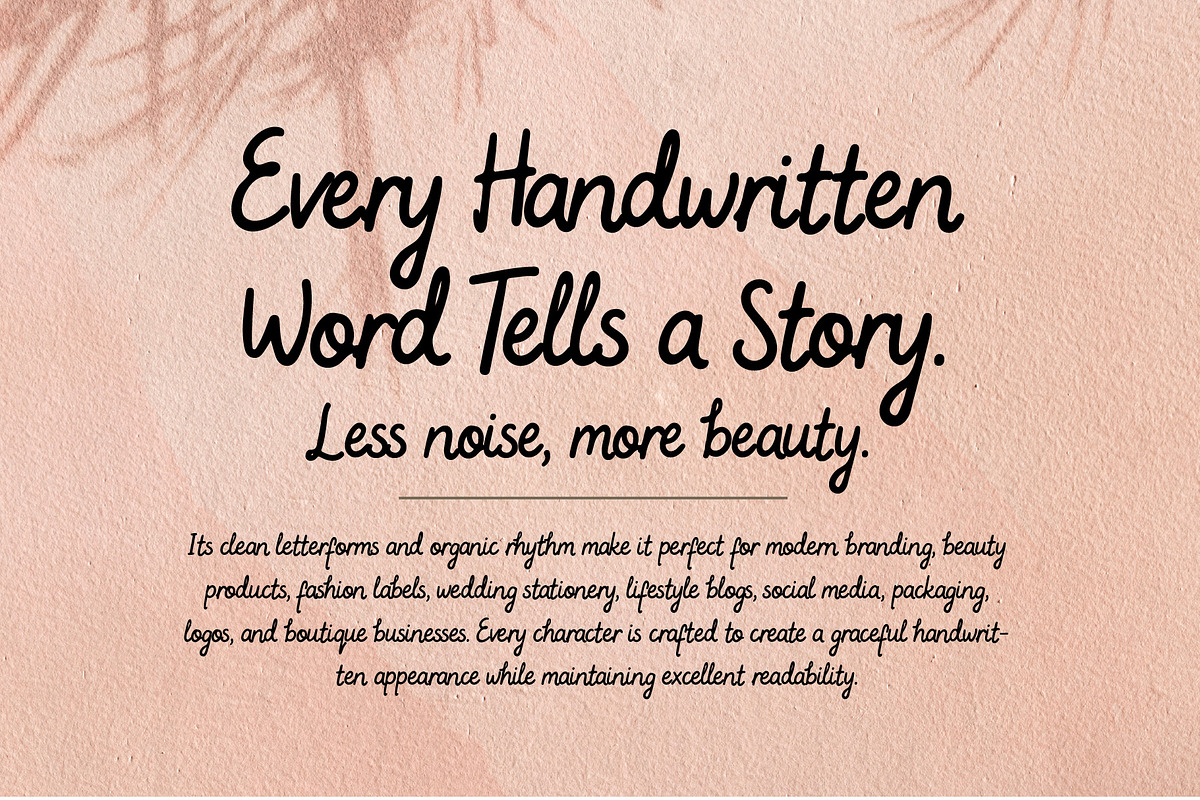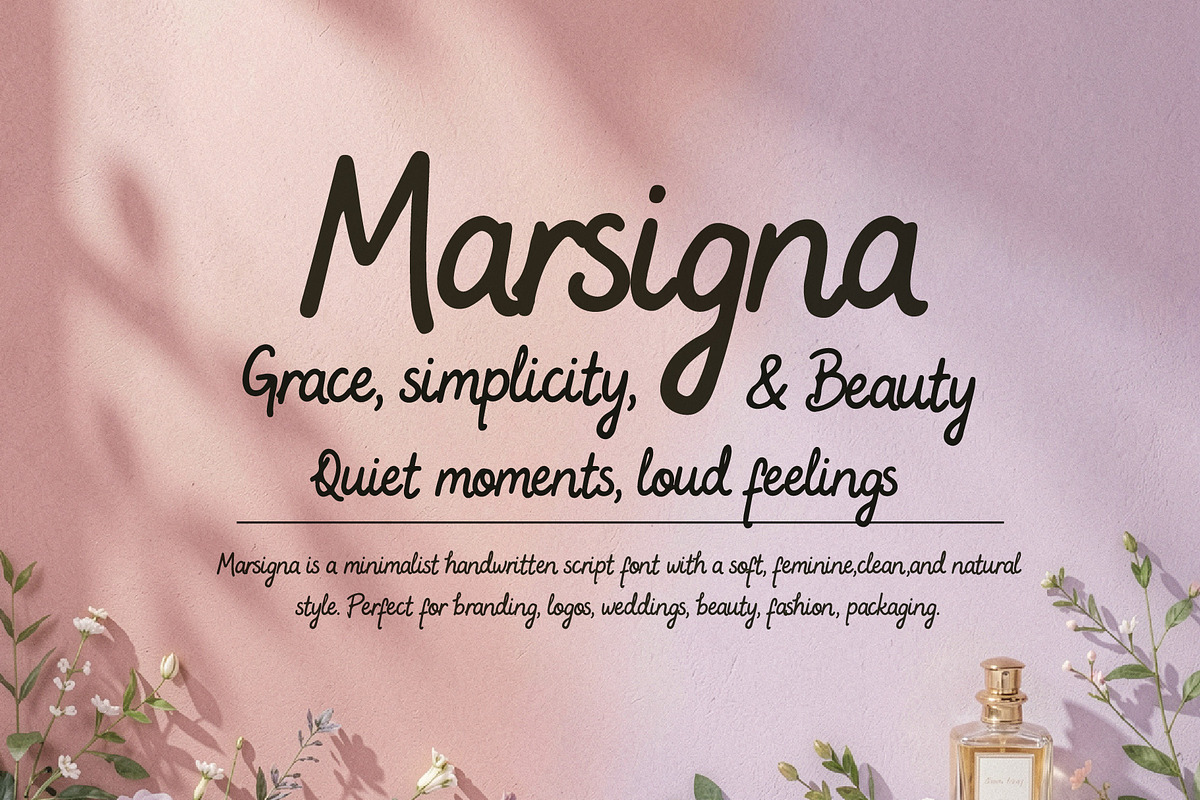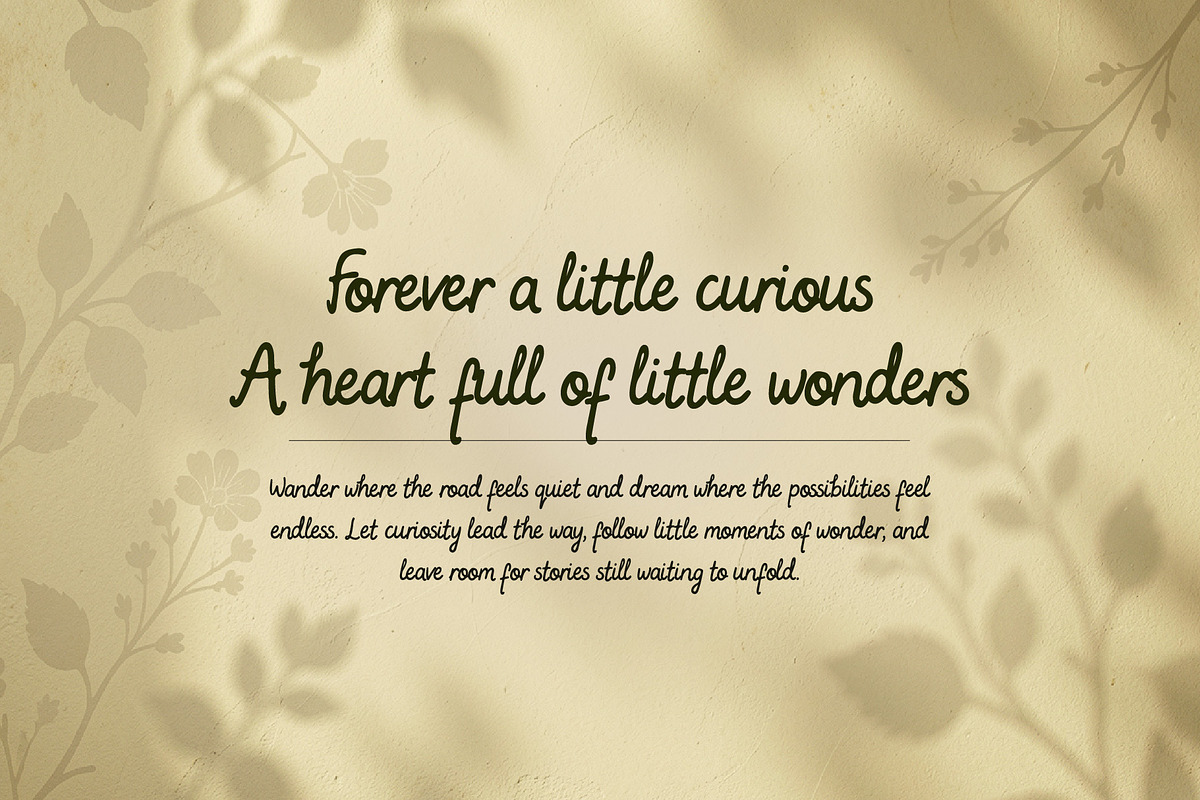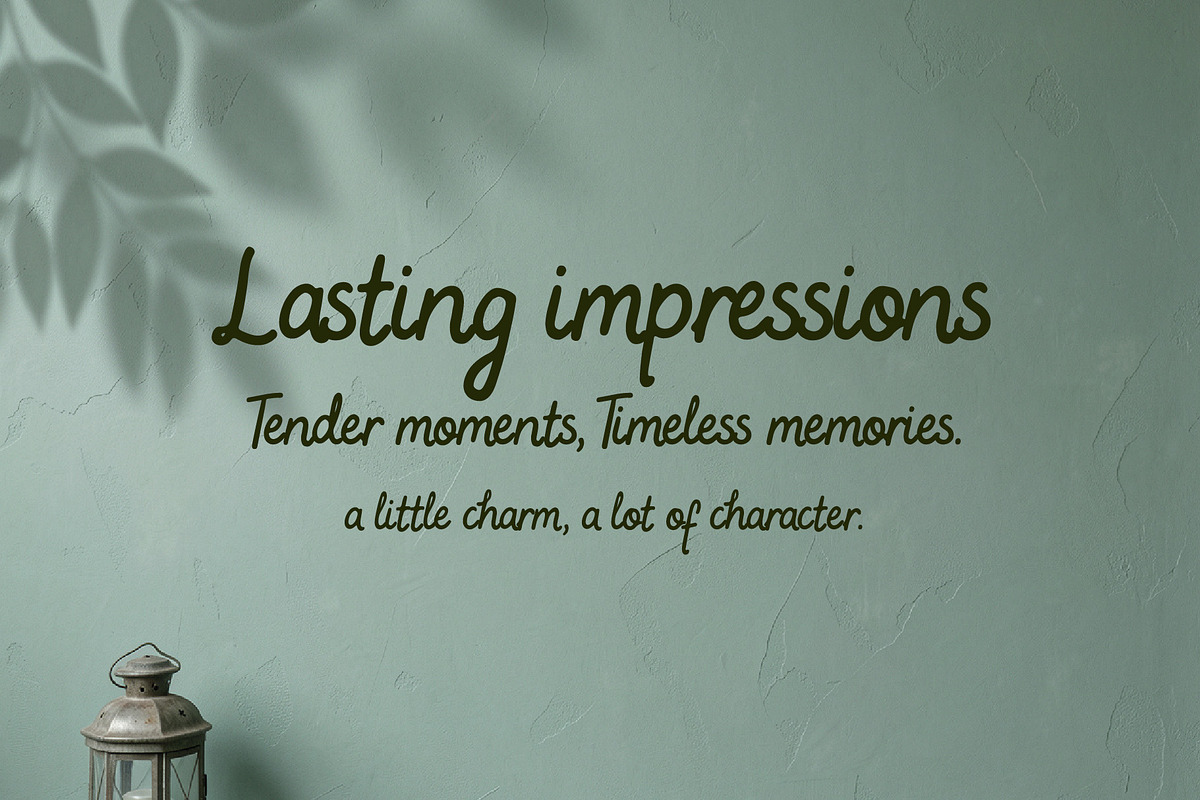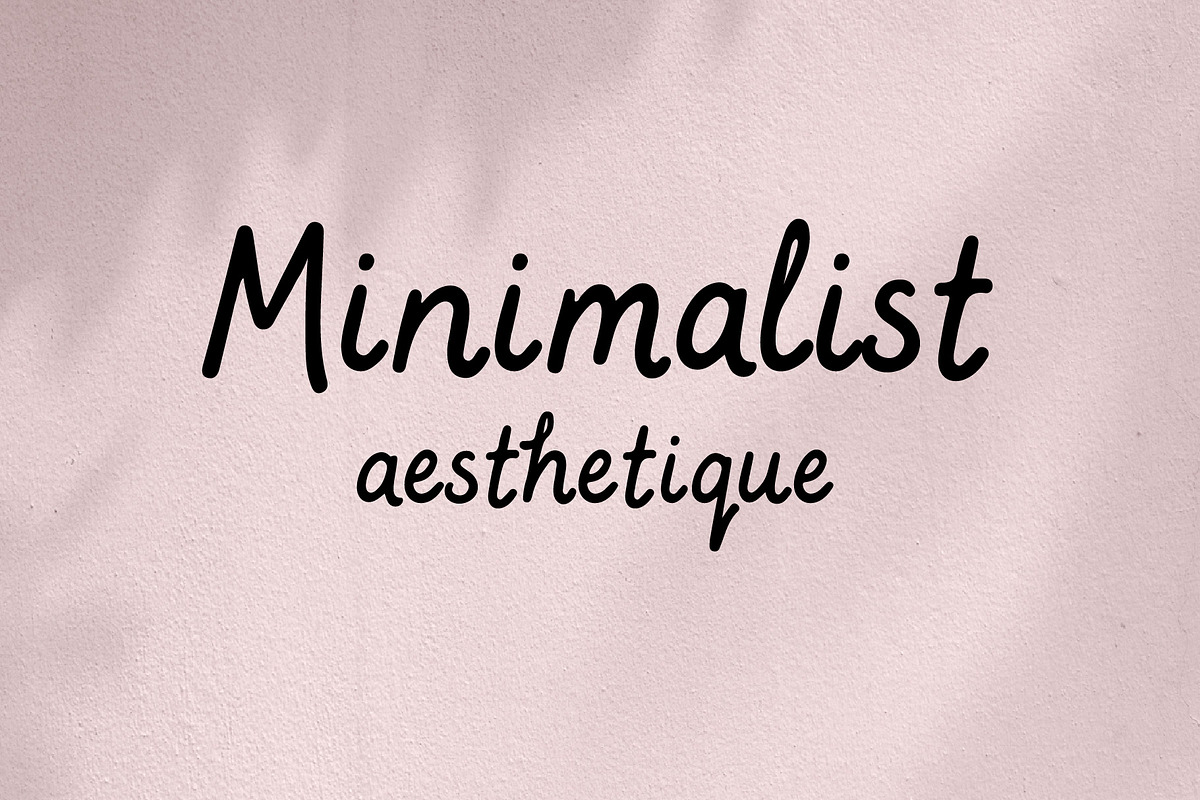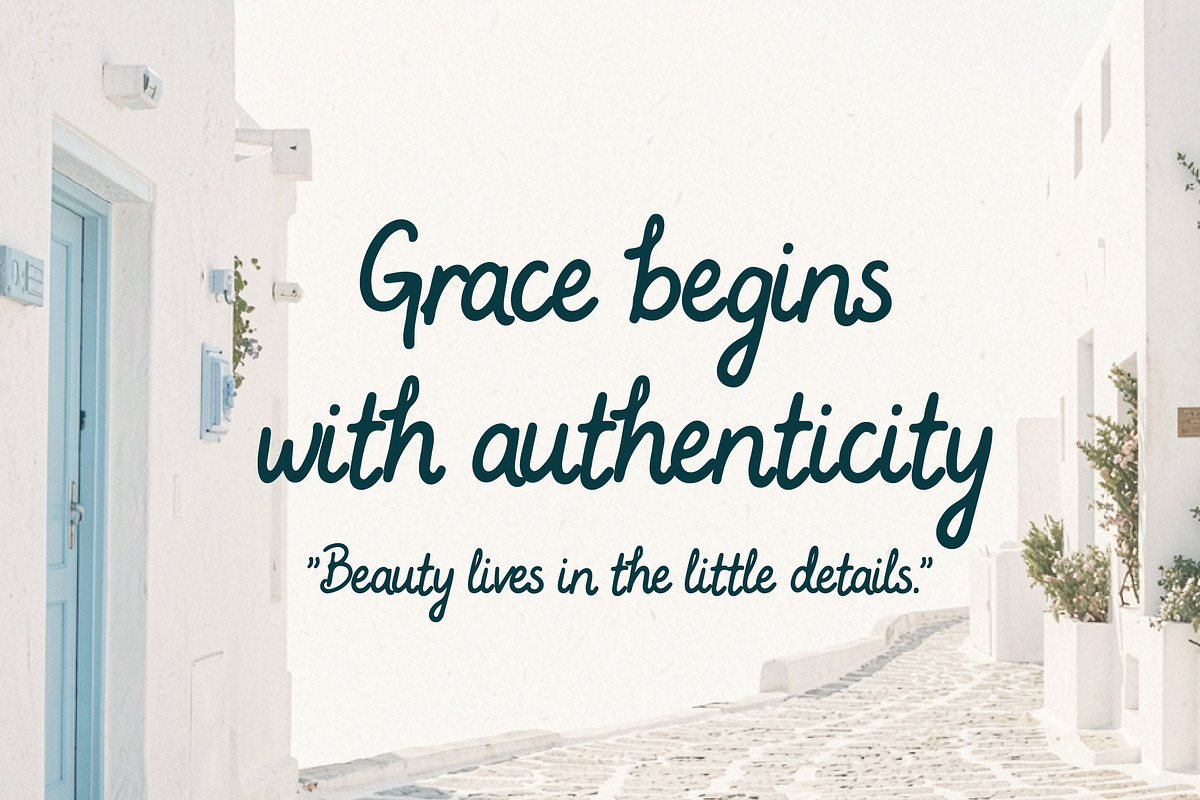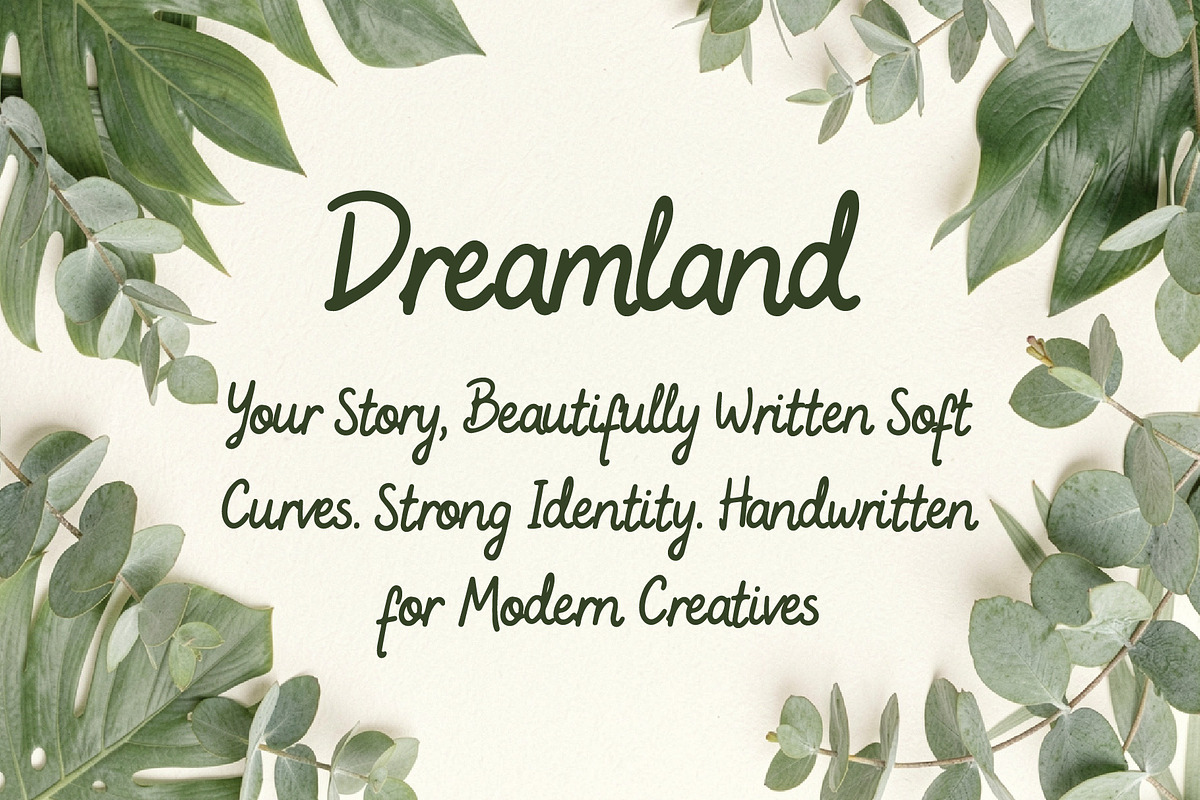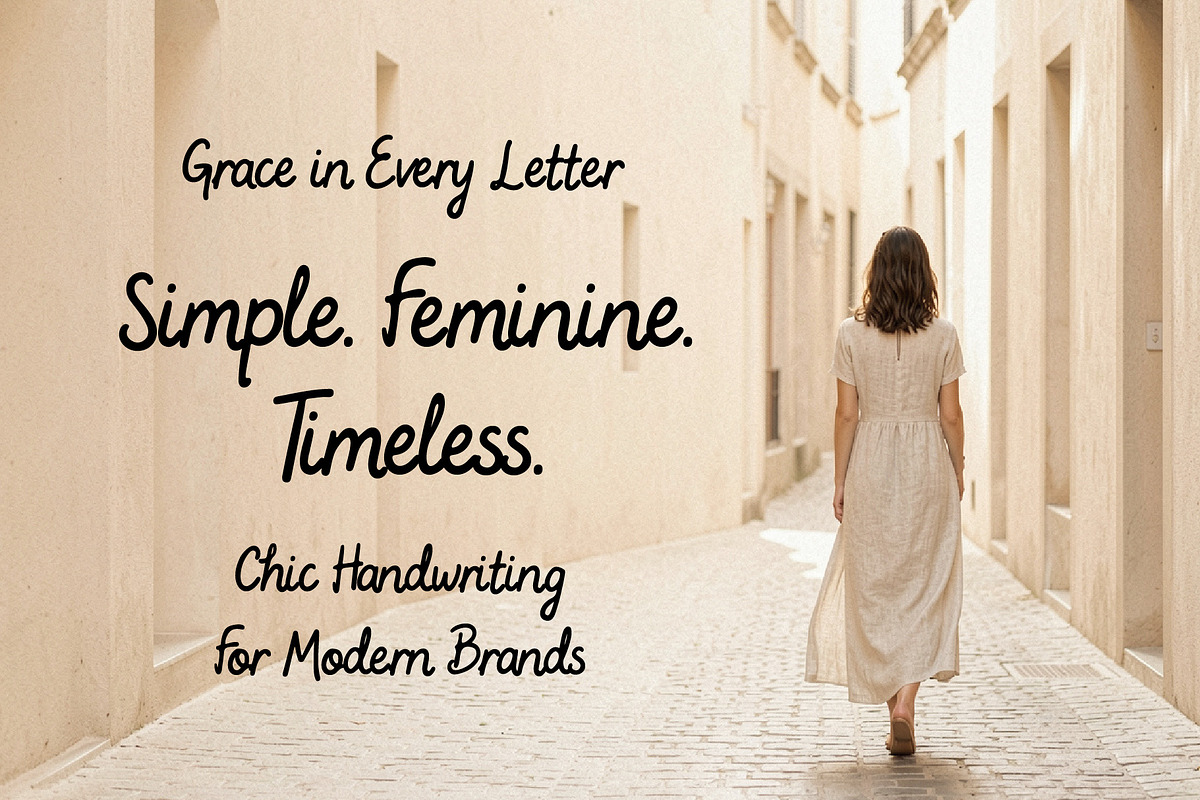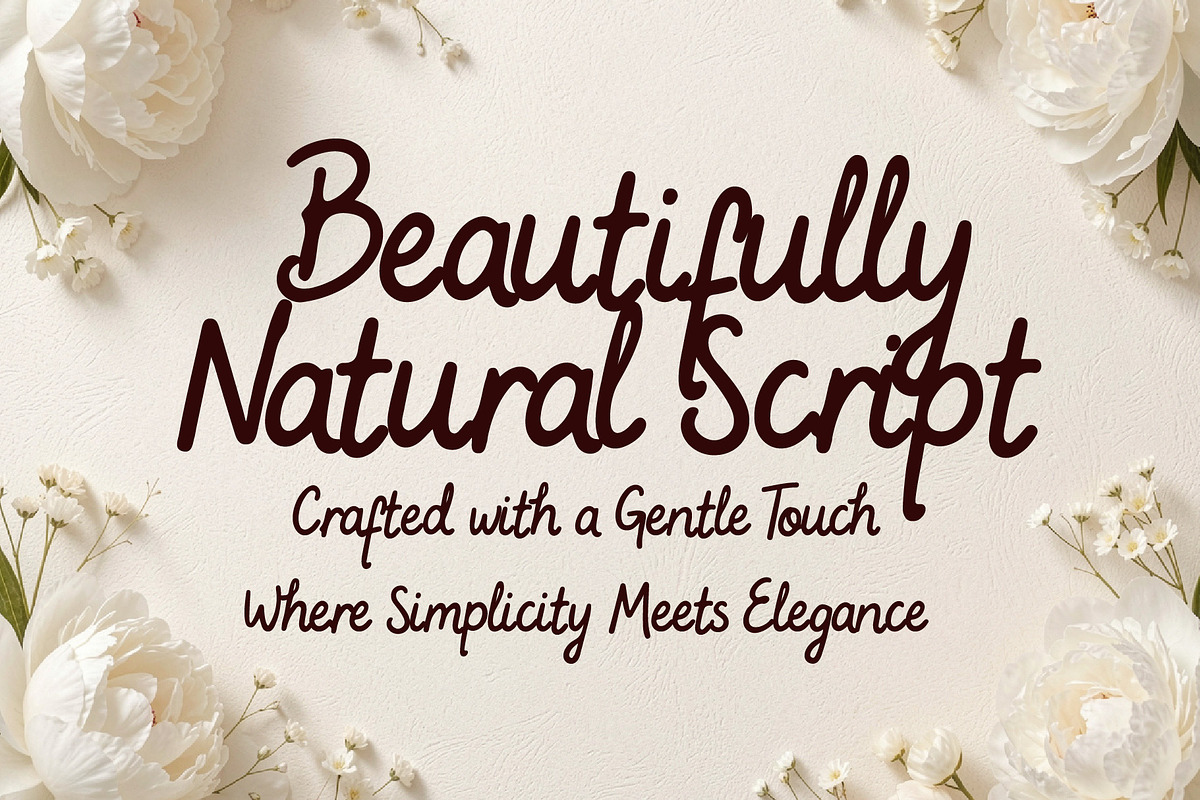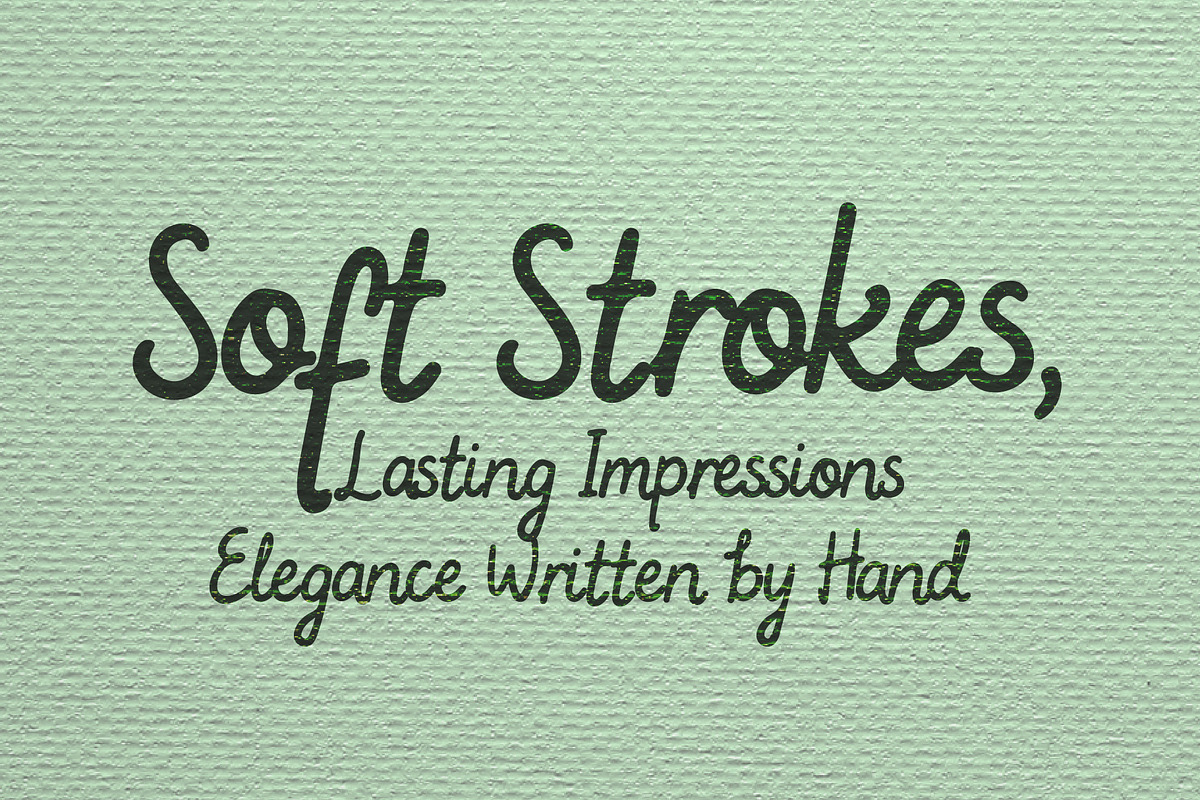
Marsigna - Simple Feminine Timeless
Meet Marsigna, a handwritten script font that celebrates effortless beauty through soft, flowing strokes and a naturally elegant personality. Designed with a minimalist approach, Marsigna brings a warm, friendly, and feminine touch that feels authentic rather than overly decorative.
Its clean letterforms and organic rhythm make it perfect for modern branding, beauty products, fashion labels, wedding stationery, lifestyle blogs, social media, packaging, logos, and boutique businesses. Every character is crafted to create a graceful handwritten appearance while maintaining excellent readability.
Whether you're creating a chic brand identity or adding a personal touch to your designs, Marsigna delivers a timeless aesthetic that feels soft, natural, and sophisticated.
Logos & Branding
Beauty & Skincare
Fashion & Boutique
Wedding Invitations
Social Media Templates
Signature Logos
Quotes & Posters
Photography Watermarks
Editorial Design